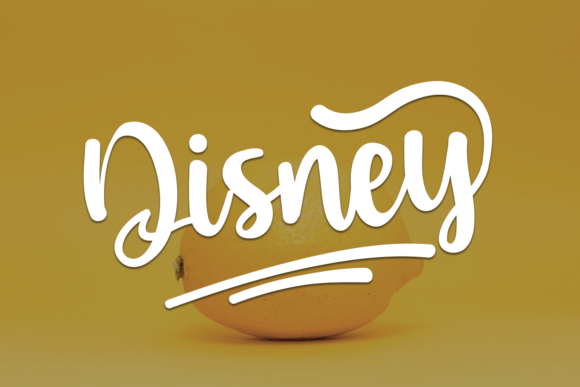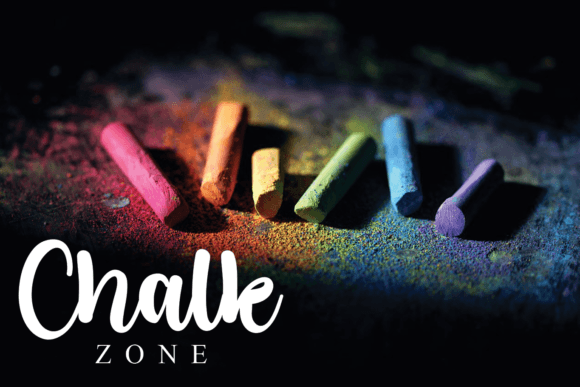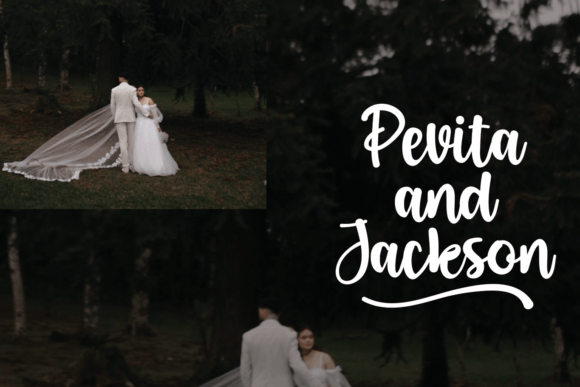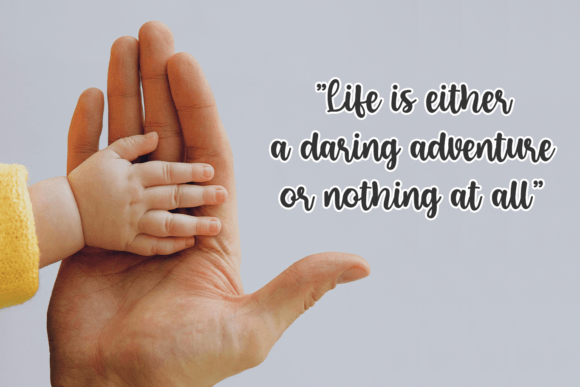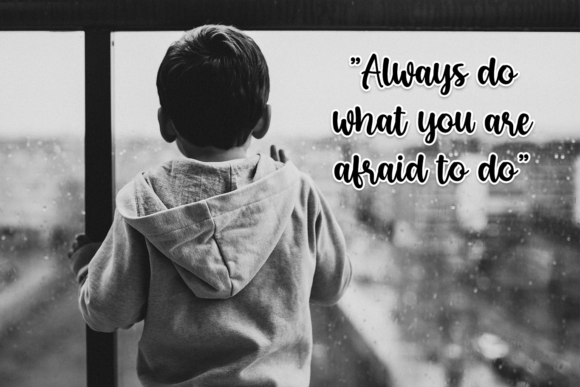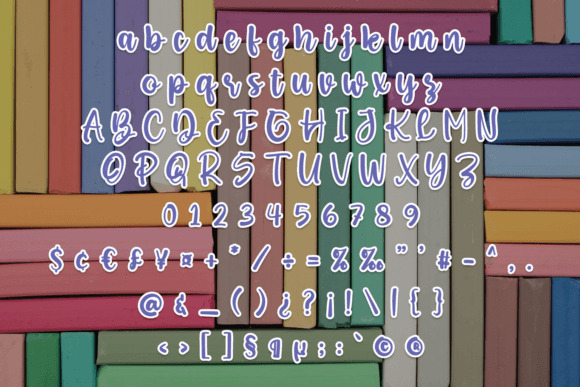
The Magic of Disney Font
Have you ever found yourself staring at a beautiful handwritten font, wondering how you can capture that same elegance in your next design project? For me, it’s the moment I stumble upon a stunning handwritten font that sparks my creativity and sets my imagination running wild. That’s exactly what happens when I come across the Disney Font – a flowing and graceful handwritten font that exudes chic style and sophistication.
As a designer, you’re always on the lookout for unique and versatile fonts that can elevate your designs to the next level. The Disney Font is a perfect addition to your font collection, allowing you to create gorgeous wedding invitations, beautiful stationery art, eye-catching social media posts, and much more.
Key Features of Disney Font
- Font Family: The Disney Font is a custom-designed font family, not a specific font name, making it a unique and proprietary typeface.
- Resolution: The Disney Font is designed to be high-resolution, making it suitable for use in high-quality print and digital applications, including film and television productions.
- Unique Characteristics: The Disney Font is known for its distinctive, hand-drawn feel, with subtle flair and elegance, making it instantly recognizable and synonymous with the Disney brand.
Disney Font Review
As a designer, I was excited to dive into the Disney Font, the iconic and beloved typeface of the Disney brand. Here’s my honest review:
- The Disney Font has a clear, recognizable identity that instantly evokes the magic of Disney.
- The font is highly legible, even at smaller sizes, making it perfect for signage and promotional materials.
- The font’s bold and playful feel makes it well-suited for children’s entertainment and family-friendly brands.
- The Disney Font is not as versatile as other fonts, making it less suitable for complex or technical content.
- The font’s bold and playful feel can be overwhelming or even kitschy for more serious or sophisticated brands.
- The font may not be suitable for digital applications, as it can appear pixelated or distorted at smaller sizes.
The Disney Font is a unique and recognizable typeface that is sure to evoke the magic of Disney. While it may have some limitations, it’s perfect for brands that want to convey a sense of wonder and playfulness. However, it’s not the best choice for more complex or technical content.
The Disney Font is ideal for:
- Creating whimsical and playful designs.
- Adding a touch of nostalgia to your projects.
- Designing children’s products, such as party invitations and stickers.
For optimal results, use the Disney Font in conjunction with bright colors and fun graphics.